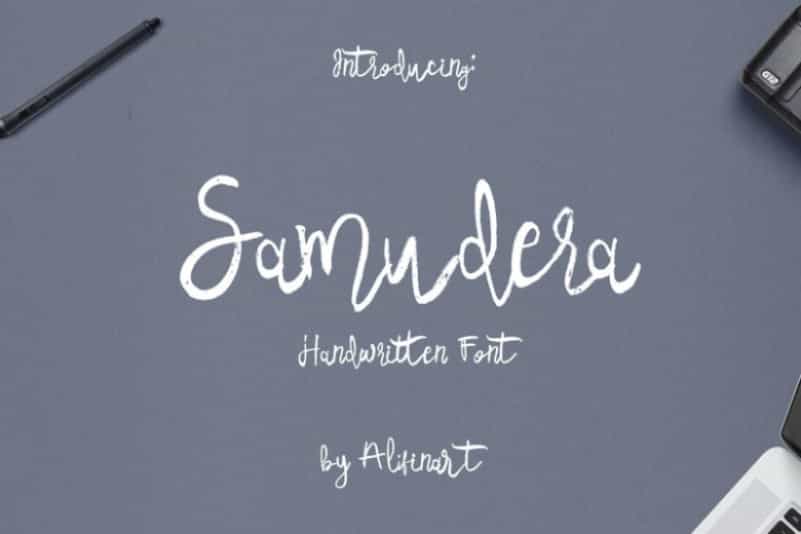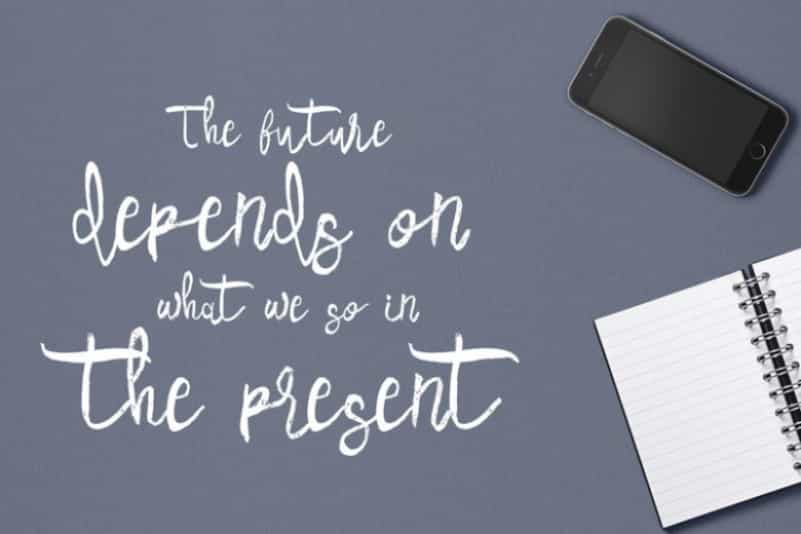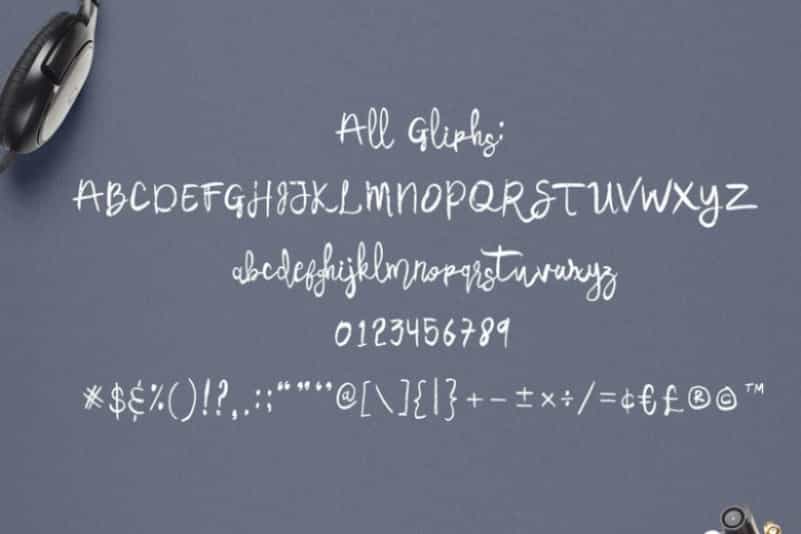
Samudera is a font that has been hand written and it looks like the brushpen textures of pentel. You can use this to improve your work. Samudera handwritten font can be used for a variety of projects, like stationery invitations, social media, logos, weddings and branding as well as graphic designs with the addition of some ligature and swash. and can be matched with different types of serif fonts to make the perfect project you have in mind.